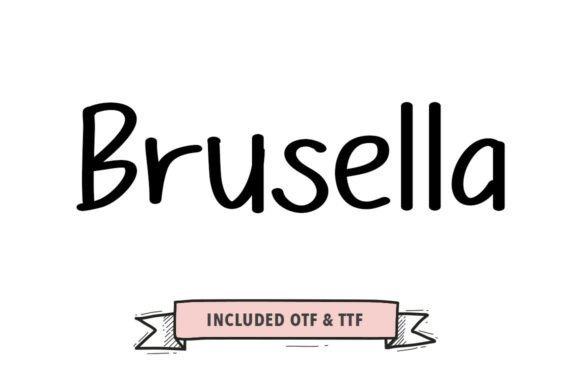
The Perfect Brush Stroke: Elevate Your Design with Brusella Brush Font
Have you ever stared at a blank canvas, waiting for inspiration to strike? You take a deep breath, pick up your favorite pen, and let your creative spirit flow onto the page. That’s exactly the feeling Brusella Brush Font is designed to evoke – the freedom to create, the joy of self-expression, and the confidence to make a lasting impact.
Brusella Brush Font is a masterfully crafted handwritten brush font that embodies the essence of real brush lettering. Its organic strokes, fluid motion, and distinctive texture come together to create a typeface that’s both effortless and stylish. This font is the perfect tool for designers seeking to infuse their work with a powerful personality and authentic resonance.
With Brusella Brush Font, you’ll be able to add a touch of artistic energy to your branding initiatives, social content, and any other design project that demands attention and memorability. Its dynamic and engaging nature makes it an invaluable asset for creatives looking to elevate their work and leave a lasting impression.
Brusella Brush Font Key Features
- Size: Brusella Brush Font is available in 6 styles, including Regular, Italic, Bold, Bold Italic, Outline, and Fill, each with its unique characteristics.
- Unique Characteristics: The Brusella Brush Font features a distinctive brush script style with subtle texture and imperfections, giving it a hand-crafted feel.
Brusella Brush Font Review
Overall, I’m quite impressed with the Brusella Brush Font. It has a unique charm that can add a personal touch to any project. Here are some of the things that work well:
- ✨ Beautifully crafted brush strokes that give the font a hand-drawn feel.
- ✨ Excellent legibility, even at smaller font sizes.
- ✨ A wide range of weights and styles to choose from, making it versatile for various design projects.
- ⚠️ The font may not be suitable for large-scale, high-density text, as the brush strokes can become cluttered and difficult to read.
- ⚠️ Some characters, such as the lowercase “a” and “e”, may not be as refined as others.
- ⚠️ The font may require additional styling or customization to achieve the desired look in certain design contexts.
In conclusion, the Brusella Brush Font is a great addition to any designer’s toolkit. While it has some limitations, its unique charm and versatility make it a valuable asset for projects where a hand-drawn feel is desired. With careful consideration of its limitations, I’m confident that this font can help designers achieve their creative vision.
The Brusella Brush Font is ideal for:
- Creatives projects, such as illustrations and designs.
- Handwritten or cursive text effects.
- Adding a personal touch to your branding.
For the best results, use the Brusella Brush Font with bold and expressive lines, and experiment with different font sizes and colors to create a unique visual identity.